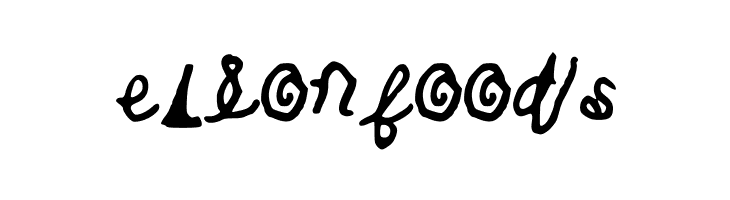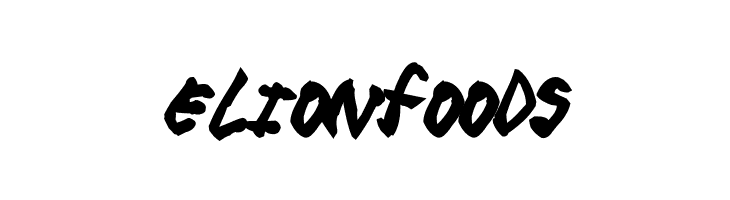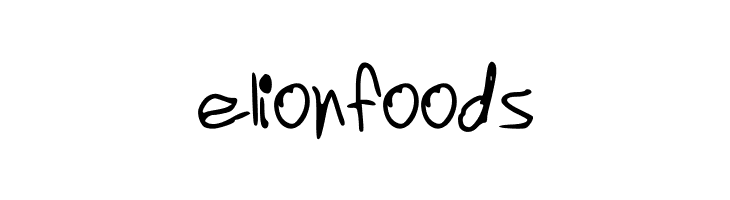
A decorative font with letters styled as barbecue grills, perfect for thematic designs.
( Aulia Al Farabi )
A bold, cursive font with a smooth, flowing style.
( CJ Cook - facebook.com/cjwcook )
A bold, brush-style font with an energetic and hand-painted look.
( Cathy Jefferson )
A playful, rounded font with bold, bubbly letterforms.
( Darrell Flood )
A playful, cookie-inspired font with bold, rounded characters and decorative cutouts.
( Didik Pratikno - joanatype.daportfolio.com )
Bicycle-themed decorative font with each glyph as a different bike or scooter.
( Nina - www.cookiesinthesky.com )
A playful, handcrafted font with a bold, paper-cut style.
( Peax Webdesign - www.peax-webdesign.com/goodies.html )
Hand-drawn, whimsical food and kitchen icon set.
( Techno Cool XYZ )
A monospaced font with a clean, geometric style, ideal for technical use.
( Techno Cool XYZ )
A bold, modern font with geometric shapes and rounded edges.
( Techno Cool XYZ )
A modern, geometric font with bold, angular shapes and a clean design.
( Techno Cool XYZ )
A geometric, monospaced font with bold strokes and rounded edges.
( wiccked stepmother fonts - Melanie Cook - wiccked.etsy.com/ )
A playful, handwritten font with rounded edges and consistent stroke width.
( wiccked stepmother fonts - Melanie Cook - wiccked.etsy.com/ )
A playful, hand-drawn font with a sketch-like, textured appearance.
( wiccked stepmother fonts - Melanie Cook - wiccked.etsy.com/ )
A playful, hand-drawn font with rounded, bold characters.
( BitmapMania - bitmapmania.m78.com/ )
A bold, pixelated font with a retro, geometric design.
( BitmapMania - bitmapmania.m78.com/ )
A pixelated, blocky font with a retro digital aesthetic.
( BitmapMania - bitmapmania.m78.com/ )
A bold, pixelated font with a retro, digital style.
( BitmapMania - bitmapmania.m78.com/ )
A geometric, condensed font with a retro digital aesthetic.
( BitmapMania - bitmapmania.m78.com/ )
A bold, pixelated font with a retro, digital aesthetic.
( BitmapMania - bitmapmania.m78.com/ )
A bold, geometric font with a modern, pixelated style.
( BitmapMania - bitmapmania.m78.com/ )
A pixelated, retro-style font with a geometric and digital appearance.
( BitmapMania - bitmapmania.m78.com/ )
A bold, pixelated font with a geometric, retro digital style.
( BitmapMania - bitmapmania.m78.com/ )
A bold, pixelated font with a retro digital style.
( BitmapMania - bitmapmania.m78.com/ )
A pixelated, decorative font with characters enclosed in a gear-like border, evoking a retro digital feel.
( BitmapMania - bitmapmania.m78.com/ )
A bold, geometric font with uniform strokes and a modern, digital aesthetic.
( BitmapMania - bitmapmania.m78.com/ )
A bold, geometric font with a maze-like, futuristic design.
( BitmapMania - bitmapmania.m78.com/ )
A pixelated, retro-style font with a bold, geometric design.
( FontasyLand - www.fontparty.com/designer.php3?dd=195 )
Whimsical cartoon tin man illustrations for each character.
( Glyphobet Font Foundry - glyphobet.net/typography/ )
An intricate, decorative font with flowing, serpentine lines and artistic curves.